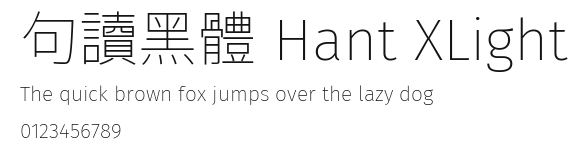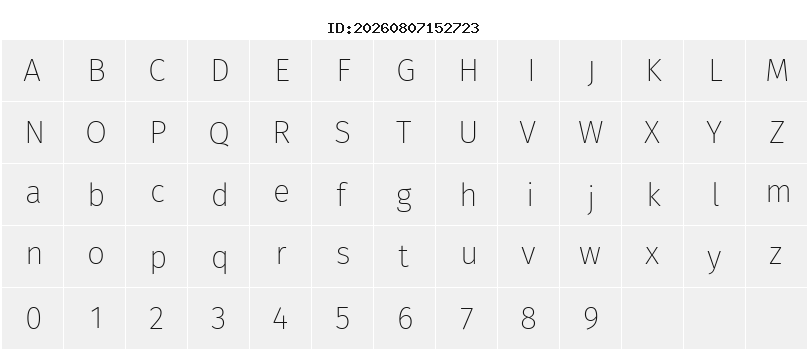
• Font Name: 句讀黑體 Hant XLight
• Font ID: 句讀黑體 Hant ExtraLight
• Full Font Name: 句讀黑體 Hant XLight
• PostScript Name: Judou-Sans-Hant-ExtraLight
About 句讀黑體 Hant XLight.ttf
句讀黑體 Hant XLight.ttf is a modern, elegant sans-serif font designed for ultimate readability and visual harmony. Perfect for branding, headlines, web design, and print materials.